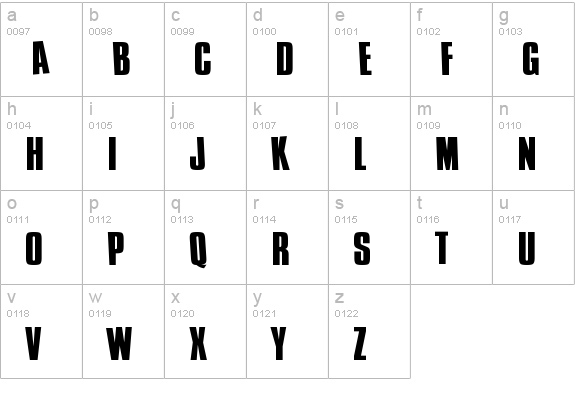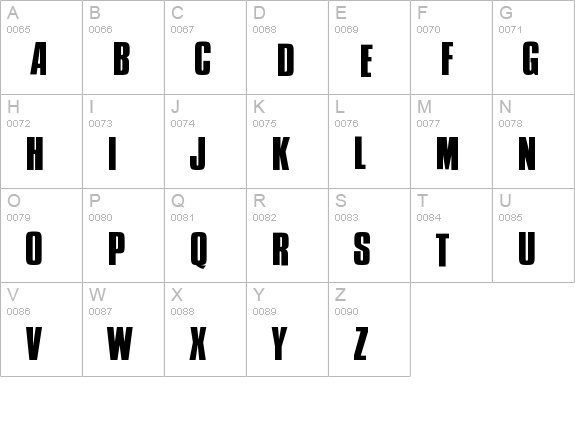
Cure - Wild Mood Swings Font Details
Introducing the Cure - Wild Mood Swings font, a captivating and versatile typeface that will add a touch of whimsy and creativity to your projects. This unique font features a playful yet sophisticated design, making it perfect for a wide range of applications, from branding to packaging, invitations to social media graphics. With its wild and unpredictable mood swings, this font exudes a sense of spontaneity and excitement, bringing a fresh and dynamic energy to your designs. The Cure - Wild Mood Swings font is sure to stand out and make a lasting impression on your audience. Best of all, the Cure - Wild Mood Swings font is free to download at FontsMarket.com, allowing you to easily access this fantastic font and incorporate it into your projects without any cost. Don't miss out on this opportunity to add a dash of creativity to your designs with the Cure - Wild Mood Swings font!